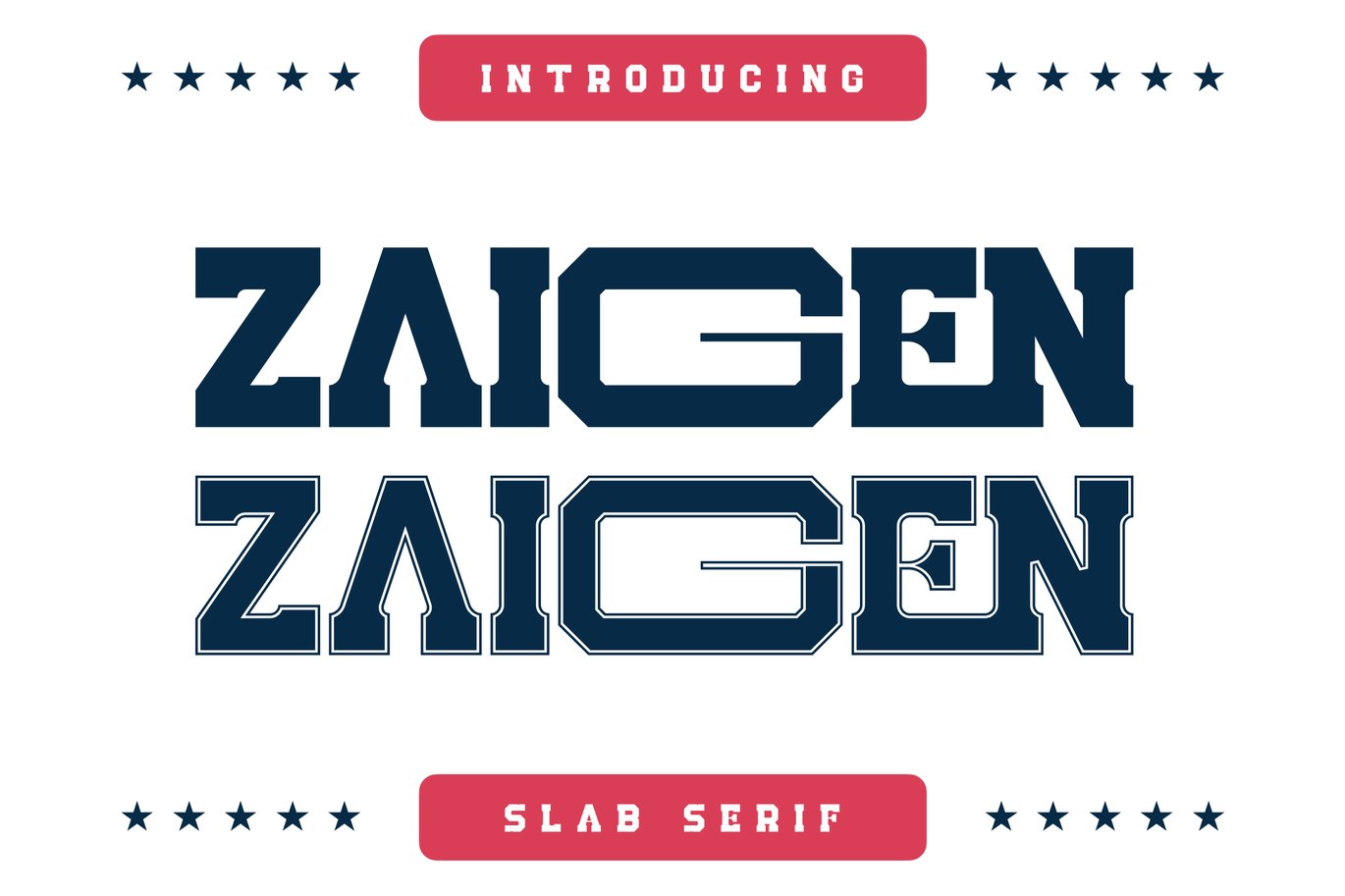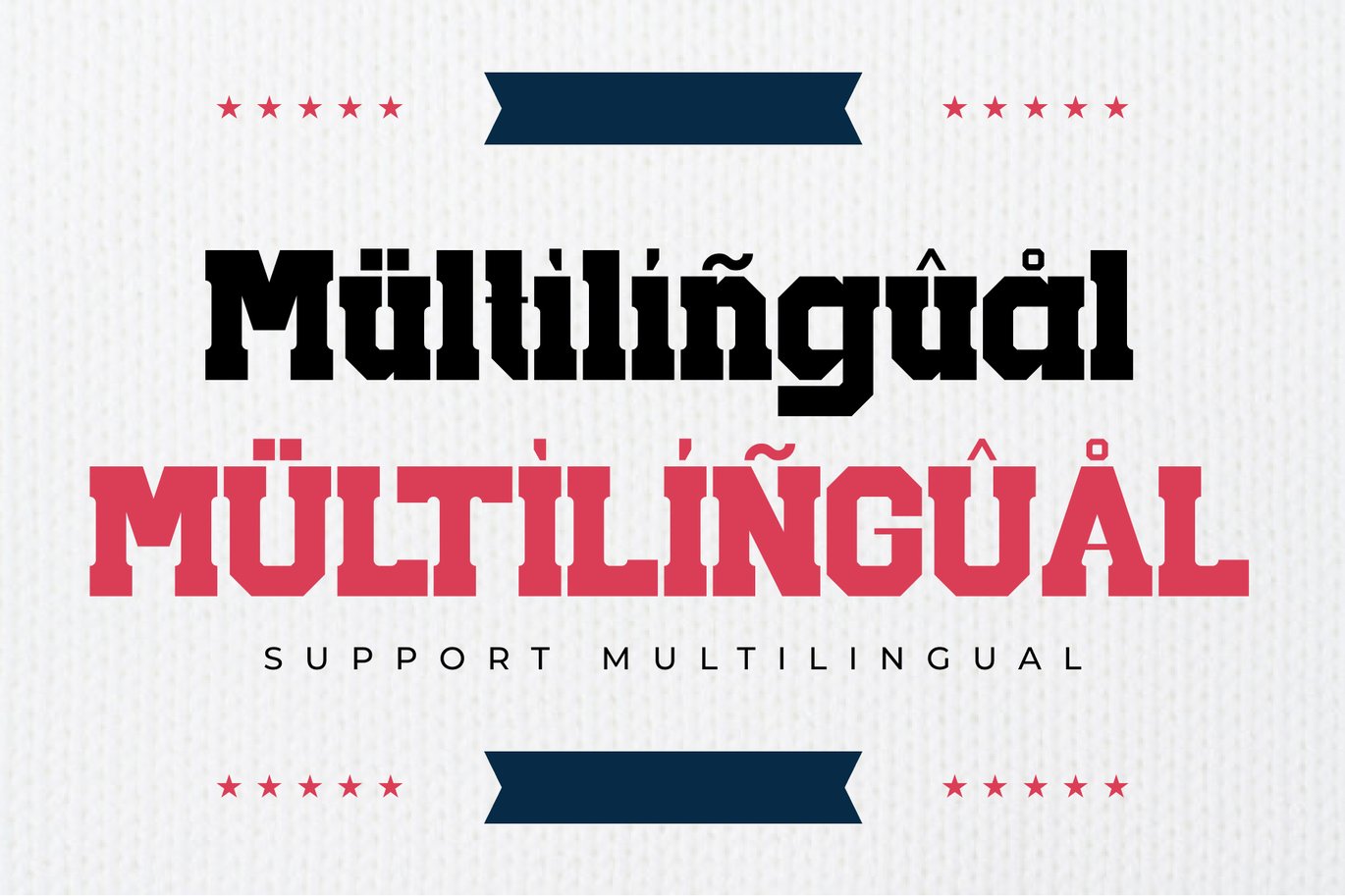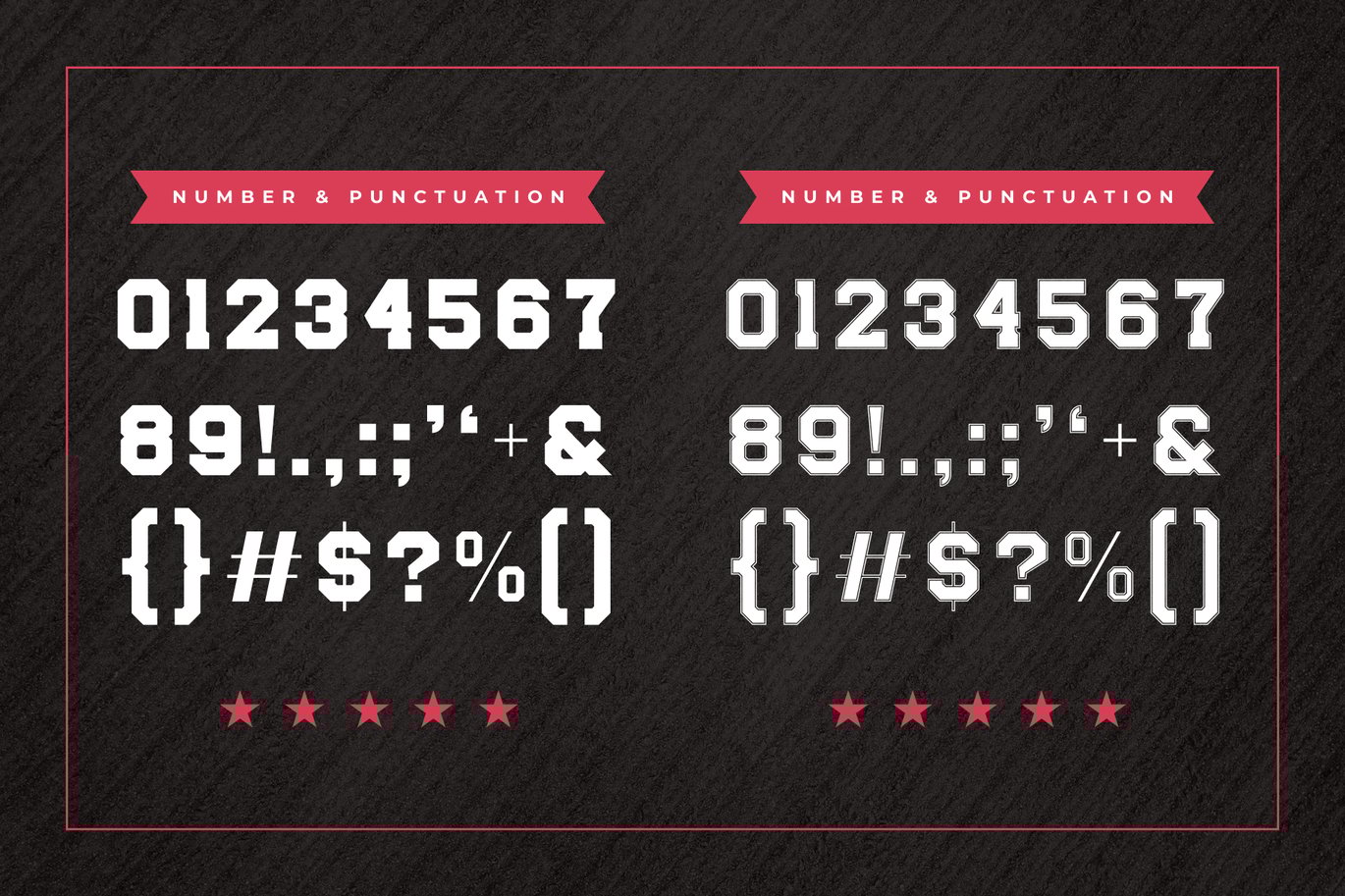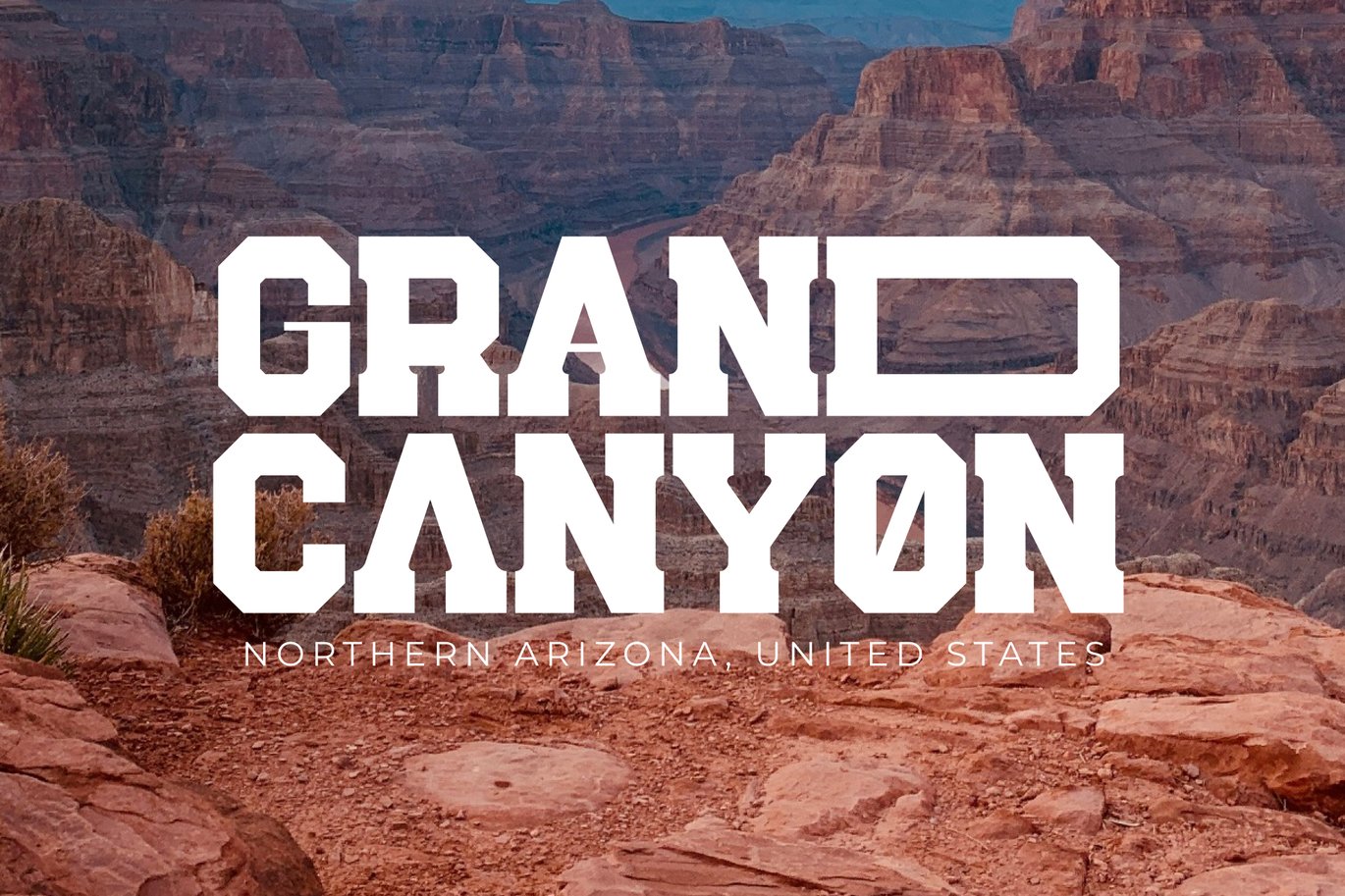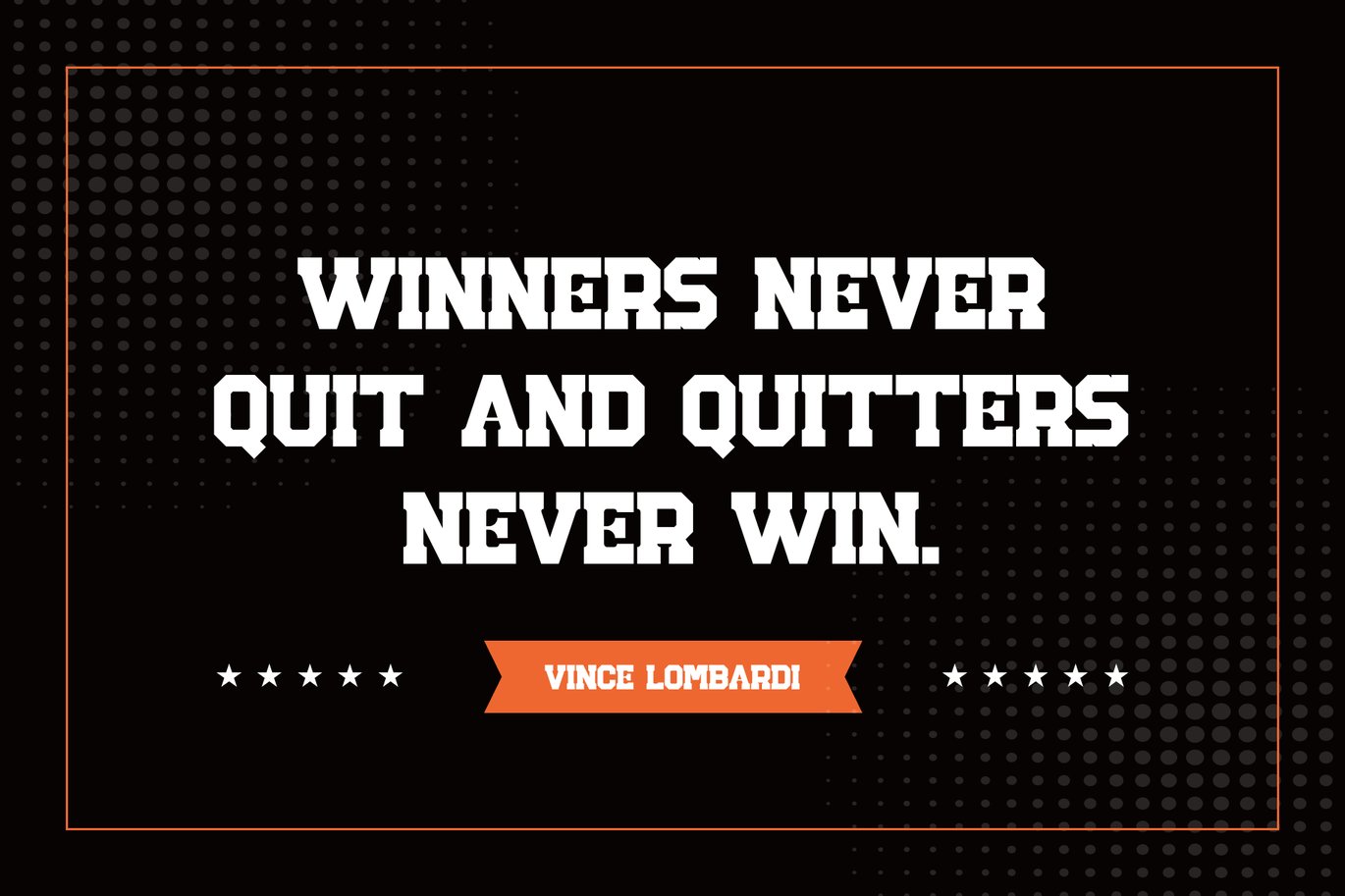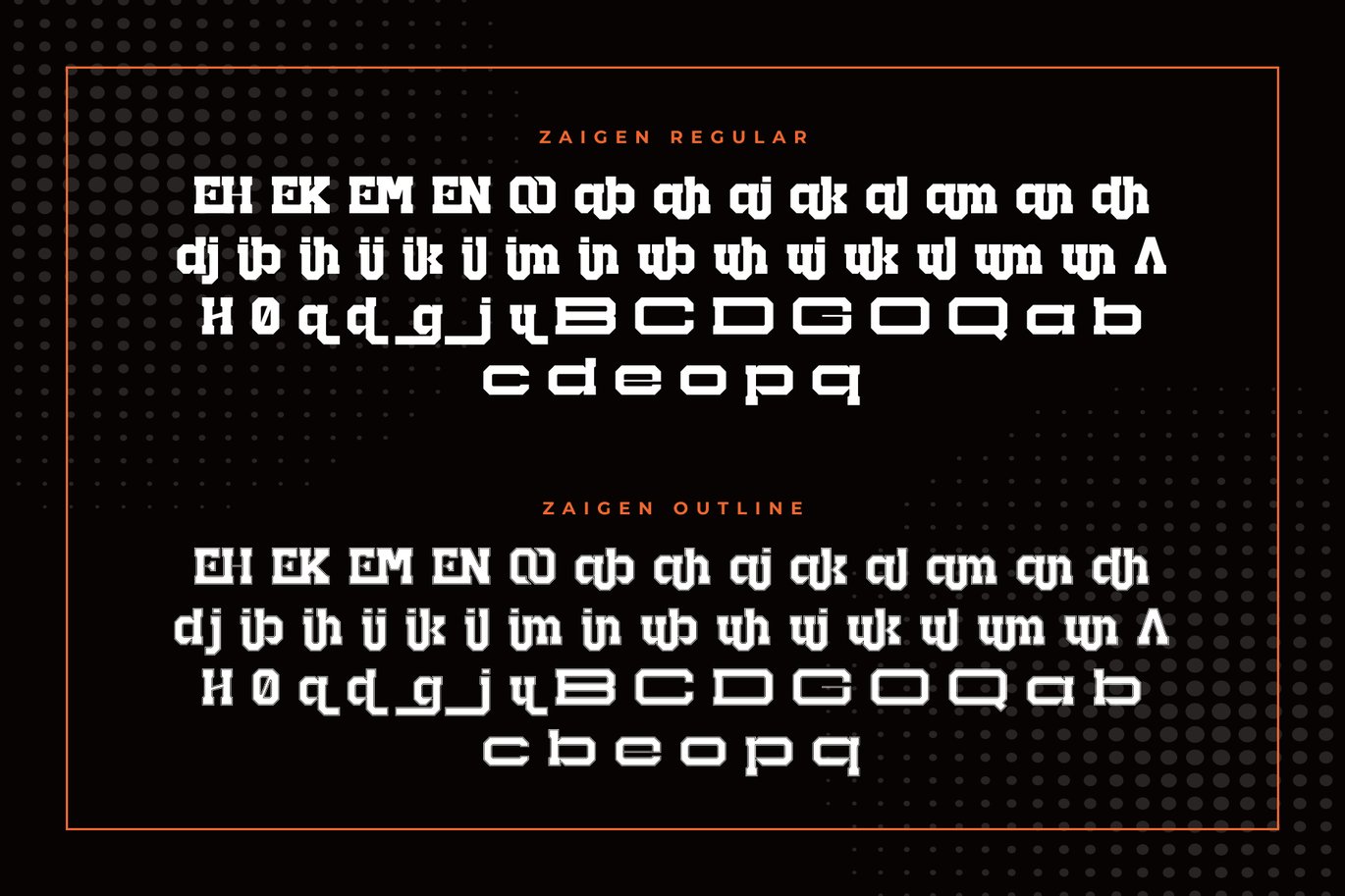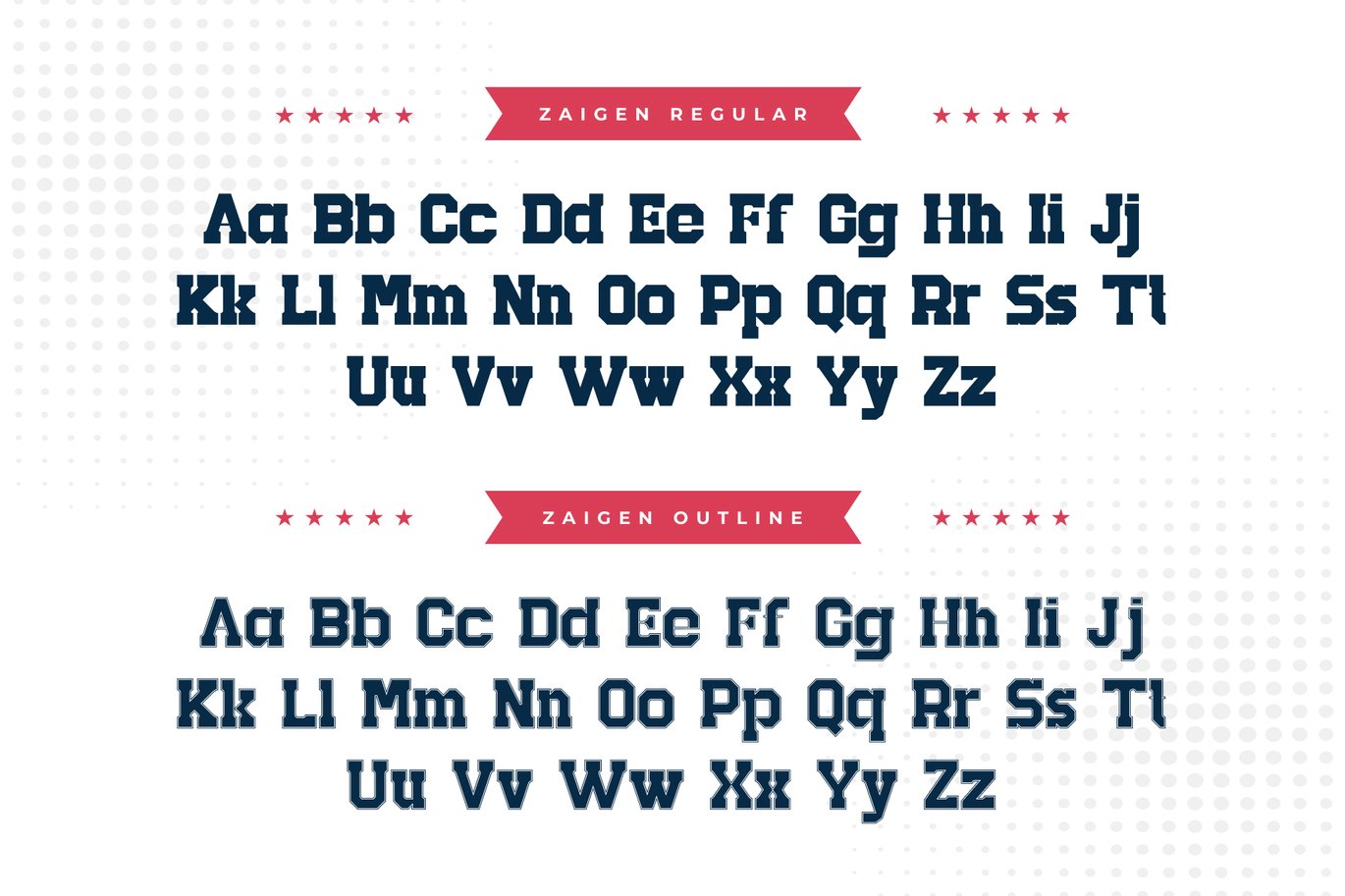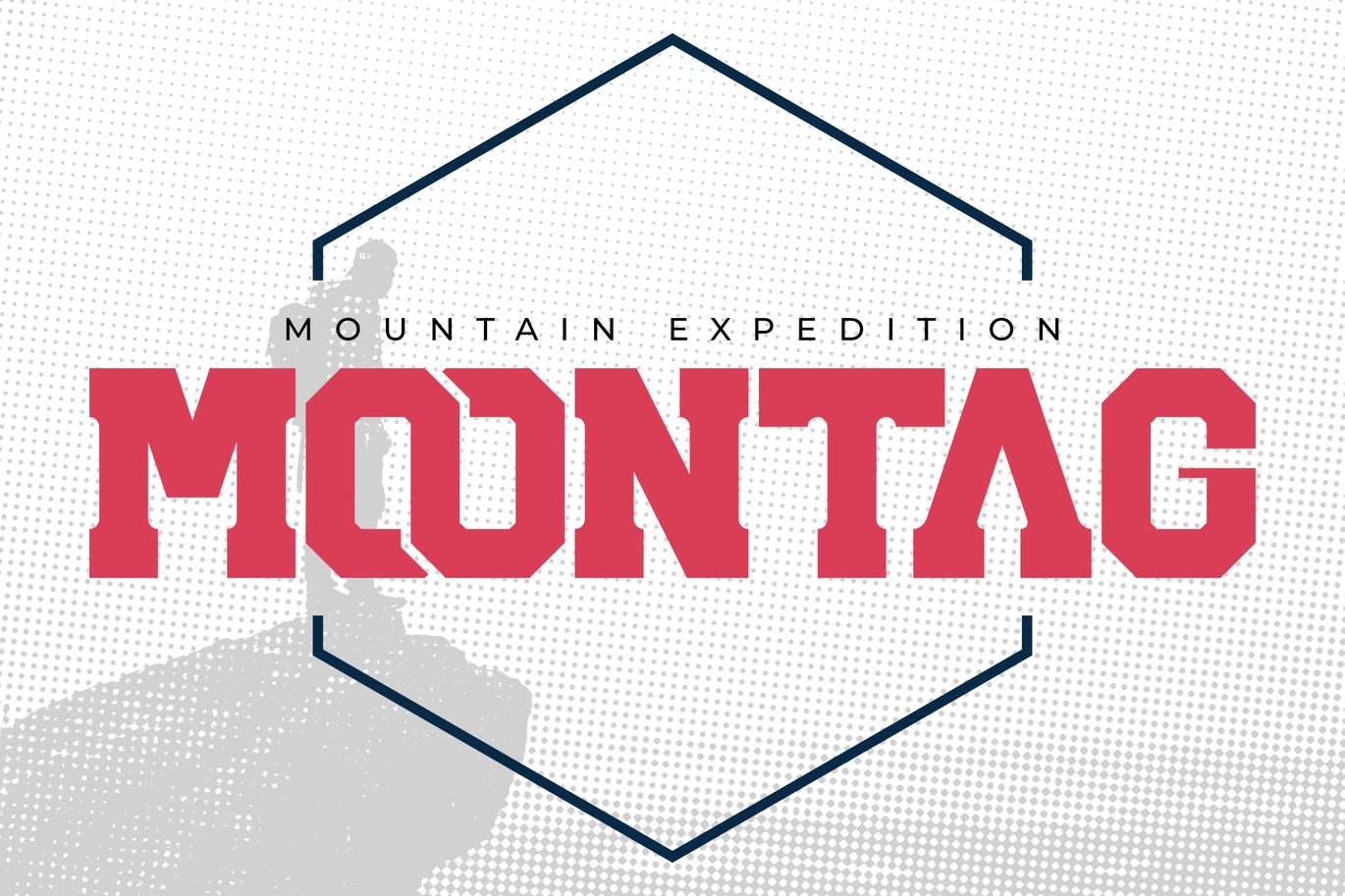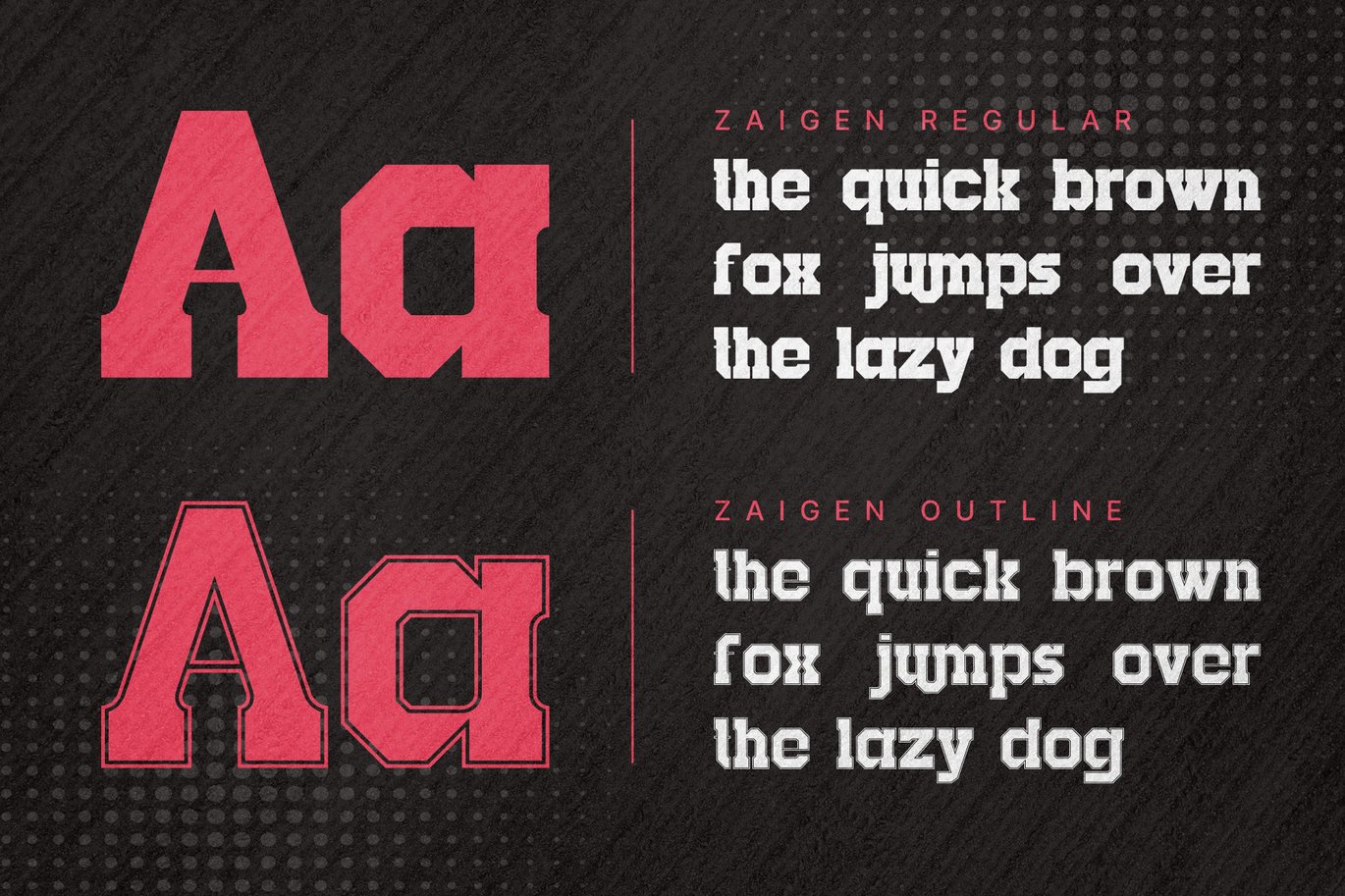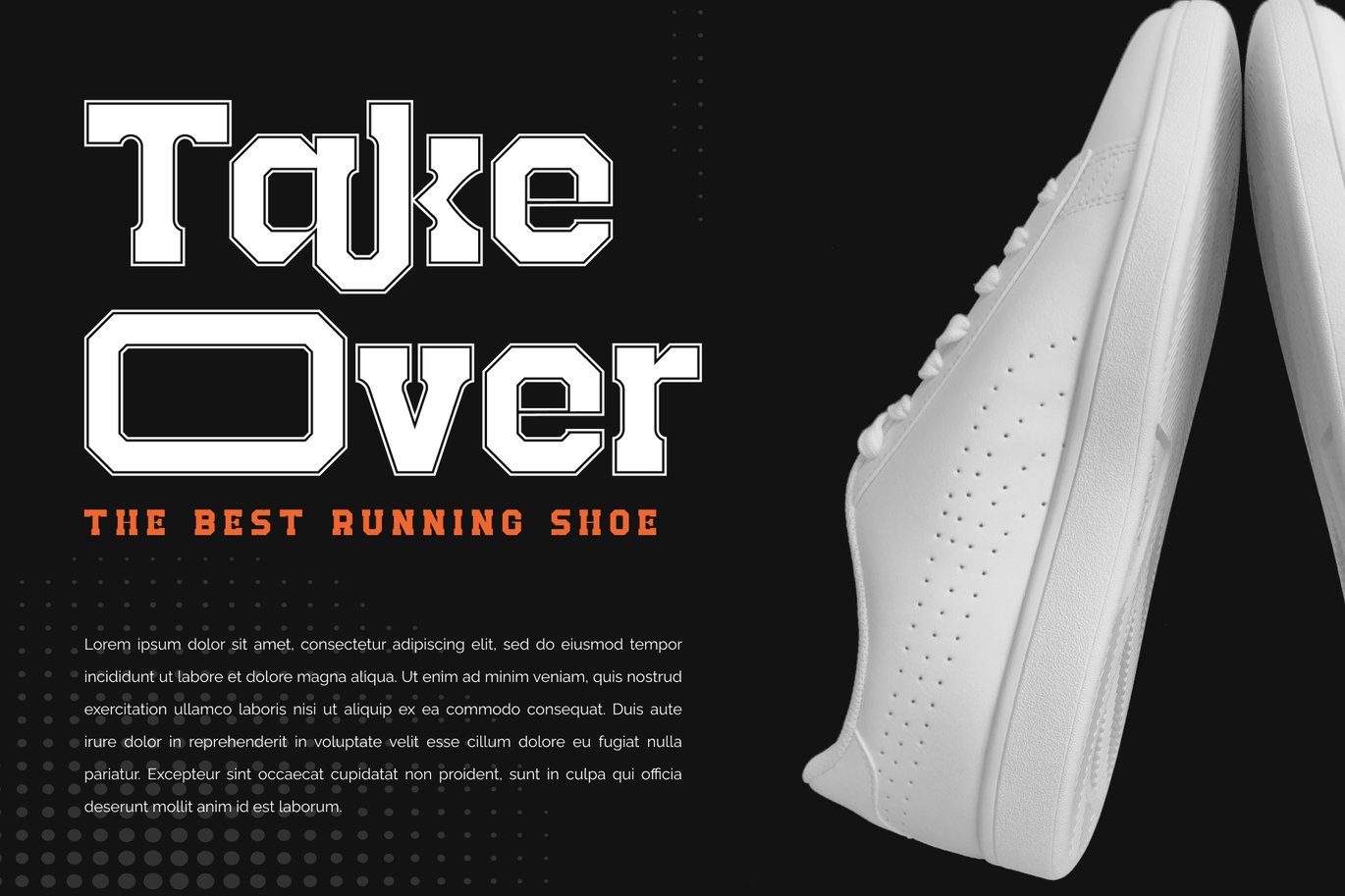
Zaigen Slab Serif Font
Introducing Zaigen Slab Serif: is a bold serif font. He has a strong character. There are two types: regular and outline. Very suitable to be combined with sports designs, company logos, business cards, t-shirts, brand names and various other designs. Zaigen Slab Serif: is a bold serif font. This charming and stylish font makes it the perfect partner for any project.
- Uppercase and lowercase
- Numbering and Punctuation